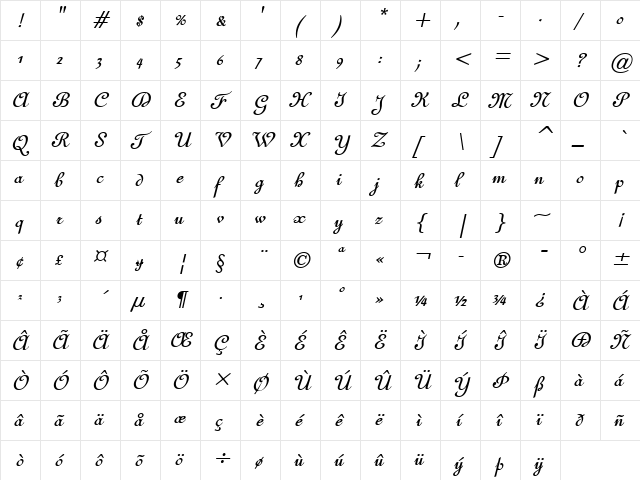
Ghandi BoldItalic
Design Context for Ghandi Typeface
Ghandi flows with the natural rhythm of handwritten lettering, making it ideal for designs that call for warmth and personal expression. Its bold stroke weight gives it real presence on the page.
Font Pairing: Combine Ghandi with a simple geometric sans for maximum contrast — the tension between flowing curves and clean structure is a classic typographic pairing.
Pro Tip: Pair Ghandi with a clean sans-serif for supporting text. The contrast between fluid script and geometric structure creates an elegant typographic hierarchy.